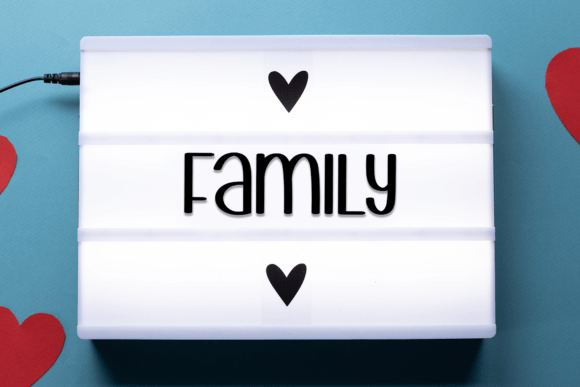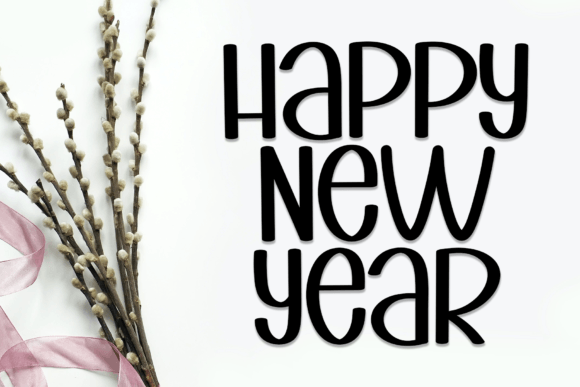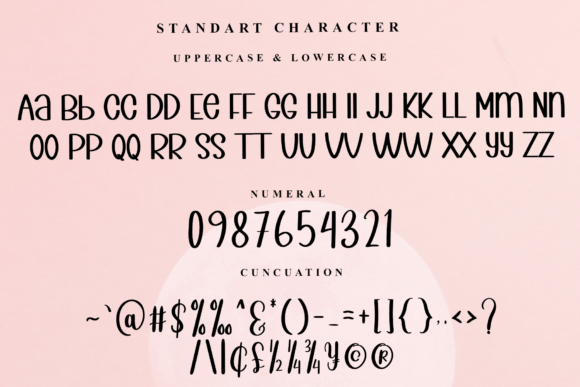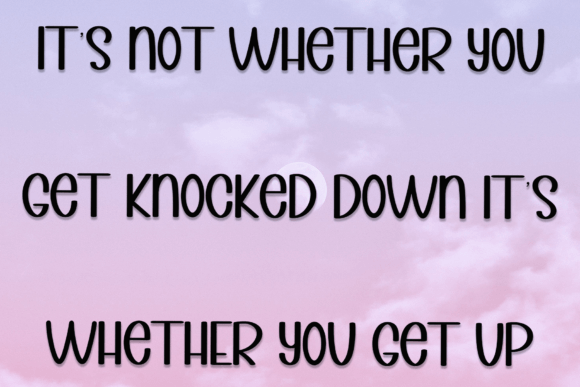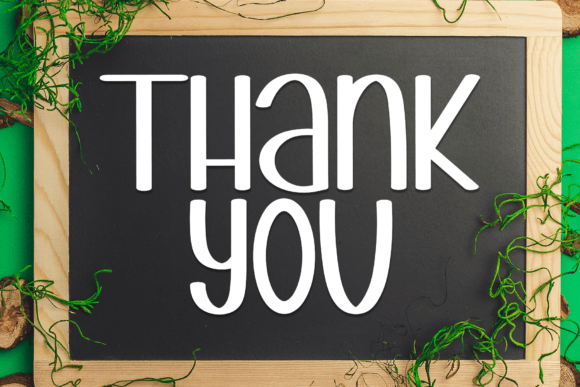
The Magic of Boho Chubby Font: A Festive Holiday Companion
It’s that time of the year again – the holiday season is just around the corner, and with it comes the pressure to create stunning designs that capture the spirit of the festivities. I recall a particularly stressful design project last year, where I was tasked with creating a custom holiday greeting card for a client. The brief was simple: make it festive, make it fun, and make it memorable. But, as I sat staring at my design software, I realized I was struggling to find the perfect font to bring it all together.
The design needed to scream “holiday cheer,” but everything I tried seemed either too bland or too over-the-top. That’s when I stumbled upon the Boho Chubby font, and it was love at first sight! With its unique blend of decorative elements and playful flair, it instantly added a touch of charm to my design. If you’re a designer, crafter, or creative hobbyist looking for a font that embodies the joy and nostalgia of the holiday season, then Boho Chubby is definitely worth checking out.
- ✨ Festive and happy vibe that’s perfect for holiday designs
- ✅ Unique decorative elements that add a touch of charm to your projects
- ✅ Works beautifully for greeting cards, gift labels, and holiday-themed projects
A Few Quirks to Keep in Mind
While Boho Chubby is an amazing font, there are a few things to be aware of. For instance, ⚠️ some of the decorative elements can be a bit overwhelming if not used thoughtfully. Also, 🤔 it might not be the best choice for body text or more formal designs, as it’s really meant to shine in titles and headings.
The Story Behind Boho Chubby
While the origins of Boho Chubby might be shrouded in mystery, it’s clear that the designer had the holiday season in mind. With its unique blend of decorative elements and playful flair, it’s easy to see how Boho Chubby has become a go-to font for designers looking to add a touch of festive cheer to their projects. Whether you’re a fan of bohemian style or just love the magic of the holiday season, Boho Chubby is sure to delight.
Q: Is Boho Chubby suitable for body text?
A: While Boho Chubby is amazing for titles and headings, it might not be the best choice for body text. Its decorative elements and playful flair are really meant to shine in shorter text snippets.